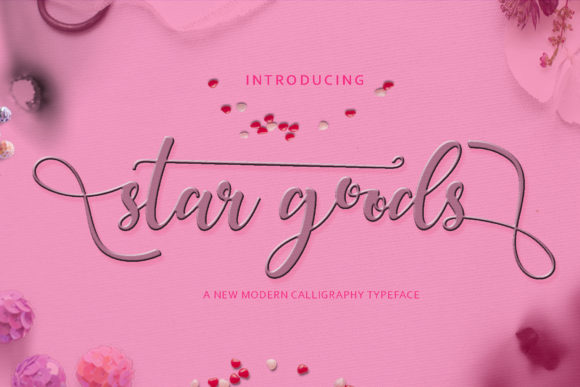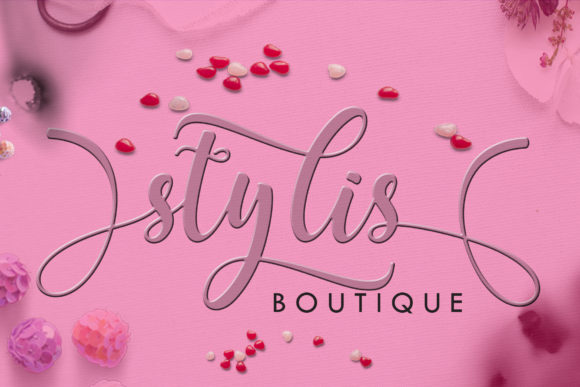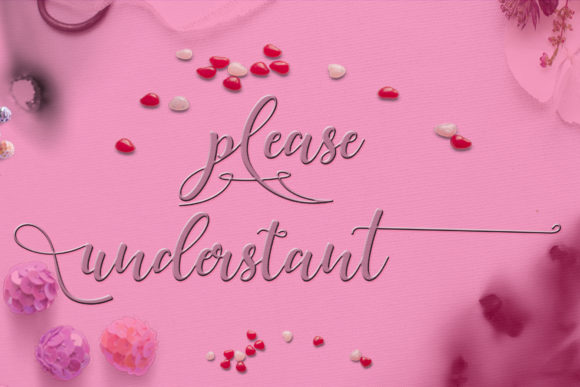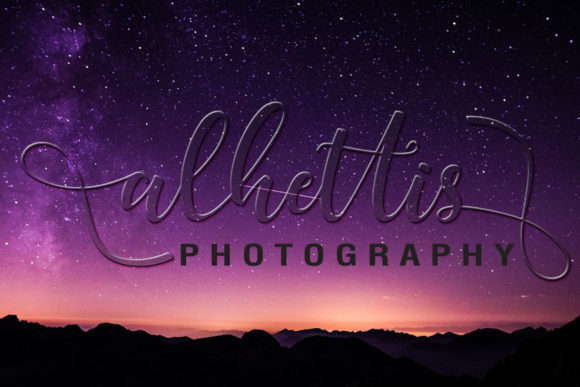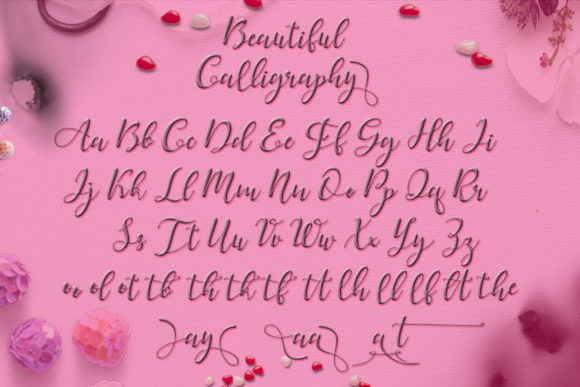
Stargood Font
About Stargood Font
Stargood is a handwritten font inspired by classic typography and brings its own unique style to any design project. This font is PUA encoded which means you can access all of the amazing glyphs and swashes with ease!